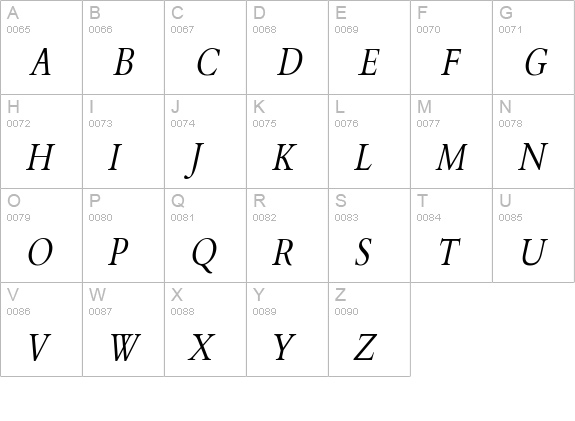
Nadine 2 Thin Italic is a delicate, low-contrast, italic variant in the Nadine typeface family \xE2\x80\x94 well suited to fashion editorial, minimal branding, and high-contrast display.
Introducing Nadine 2 Thin Italic font - a sleek and modern typeface designed for elegance and sophistication. With its thin, italicized design, Nadine 2 exudes a sense of grace and refinement, making it perfect for projects that require a touch of delicacy and style. The delicate curves and slanted angles of this font add a unique flair to any design, whether it be for branding, invitations, or editorial layouts. What sets Nadine 2 Thin Italic font apart is not only its aesthetic appeal but also its accessibility. This exquisite font is available for free download at FontsMarket.com, making it easy for designers and creatives to incorporate into their projects without any cost. Don't miss out on the opportunity to elevate your designs with the timeless beauty of Nadine 2 Thin Italic font - download it today and unleash your creativity!